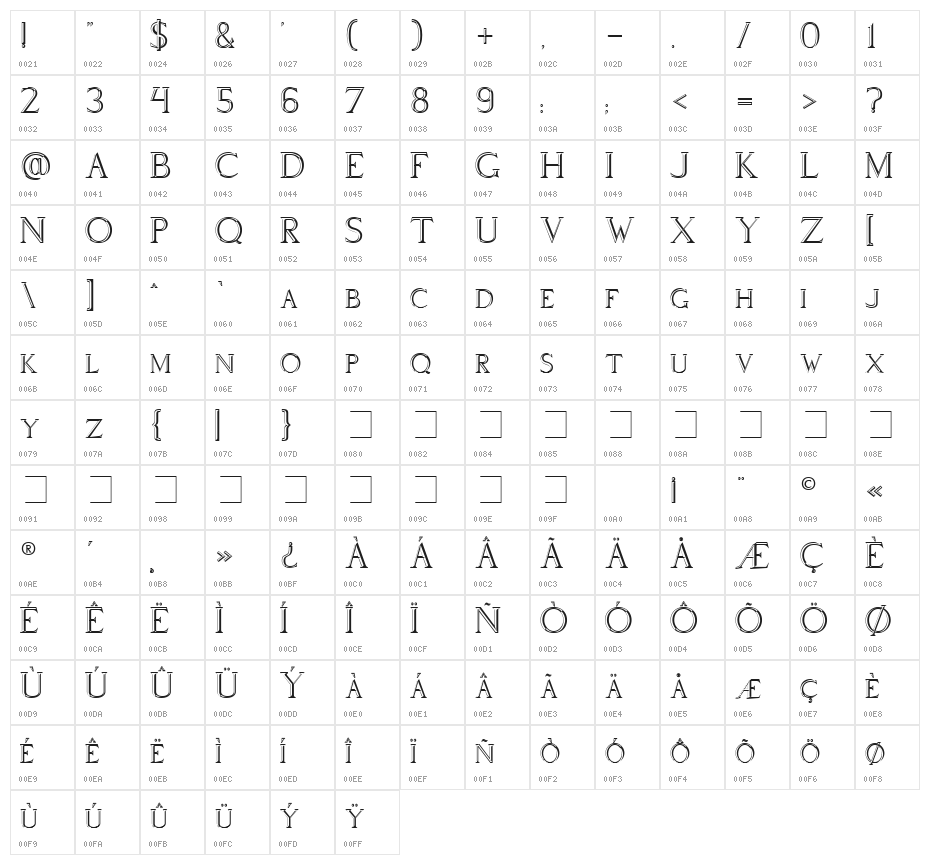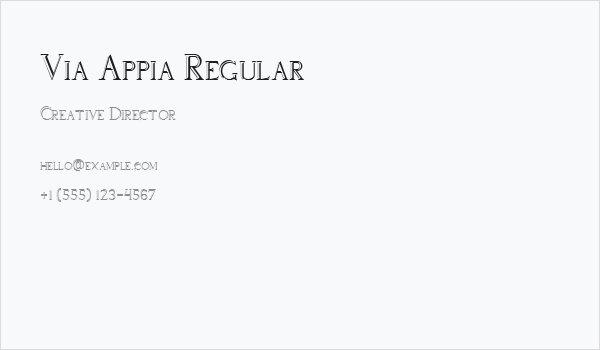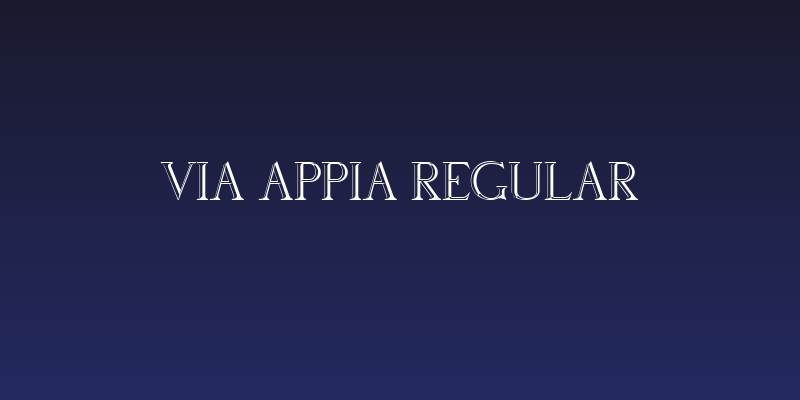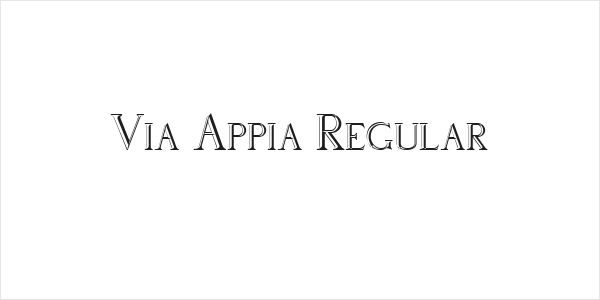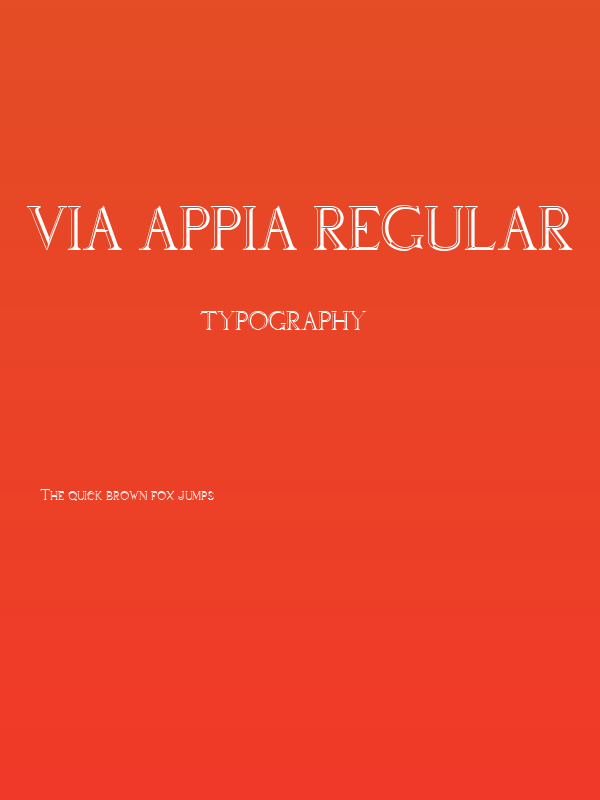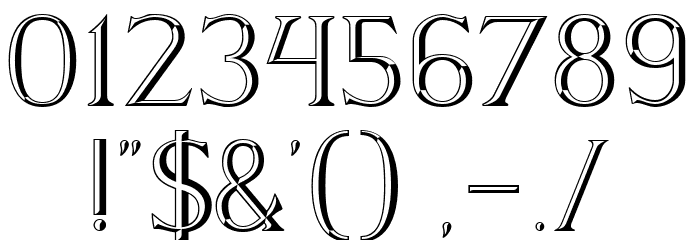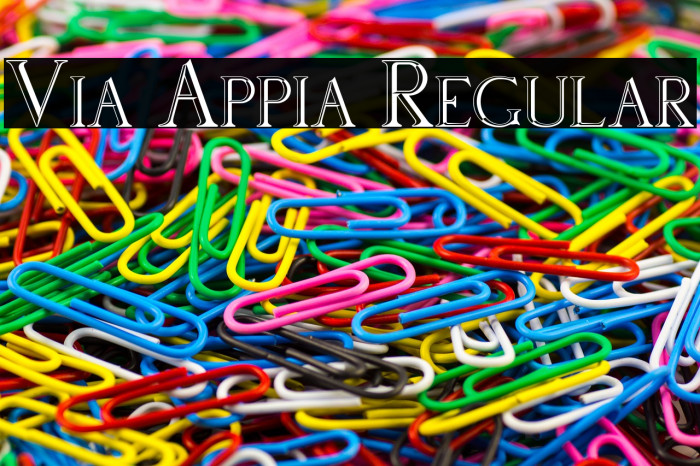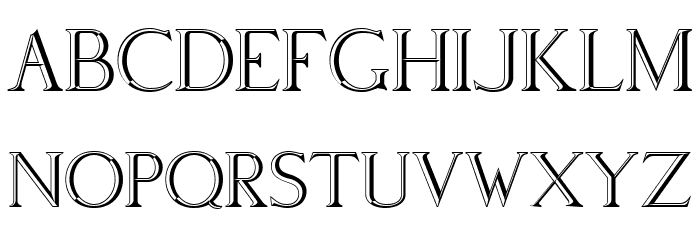
Via Appia Regular Font
Via Appia Regular Description
This font features a classic serif style with a distinct elegance and sophistication. The characters are defined by their sharp serifs and clean lines, giving them a timeless and authoritative appearance. The uppercase letters are bold and commanding, while the lowercase letters maintain a consistent style that complements the overall design. The numerals are clear and easy to read, with a traditional form that aligns well with the serif style. Special characters are thoughtfully designed to match the aesthetic, making this font versatile for various uses.
| Proposed Projects | Ideal for formal documents, book covers, branding, and editorial design where a classic and authoritative look is desired. |